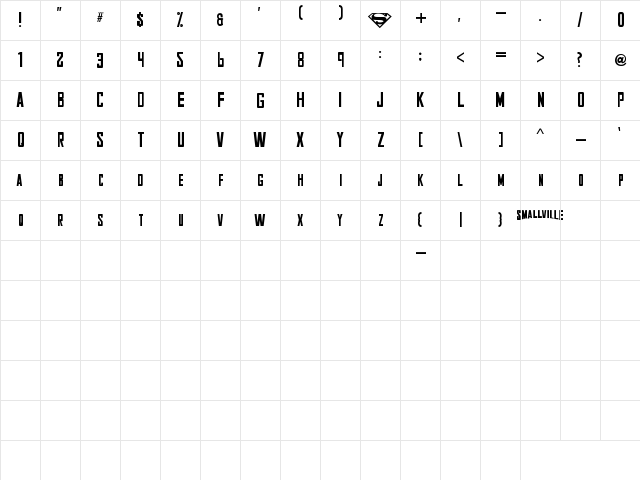
Smallville Regular
Design Context for Smallville Typeface
Smallville is a composed and adaptable typeface that performs quietly and consistently across a wide range of design contexts.
Pro Tip: Pair Smallville with a font of contrasting weight or personality to build a more expressive typographic hierarchy.